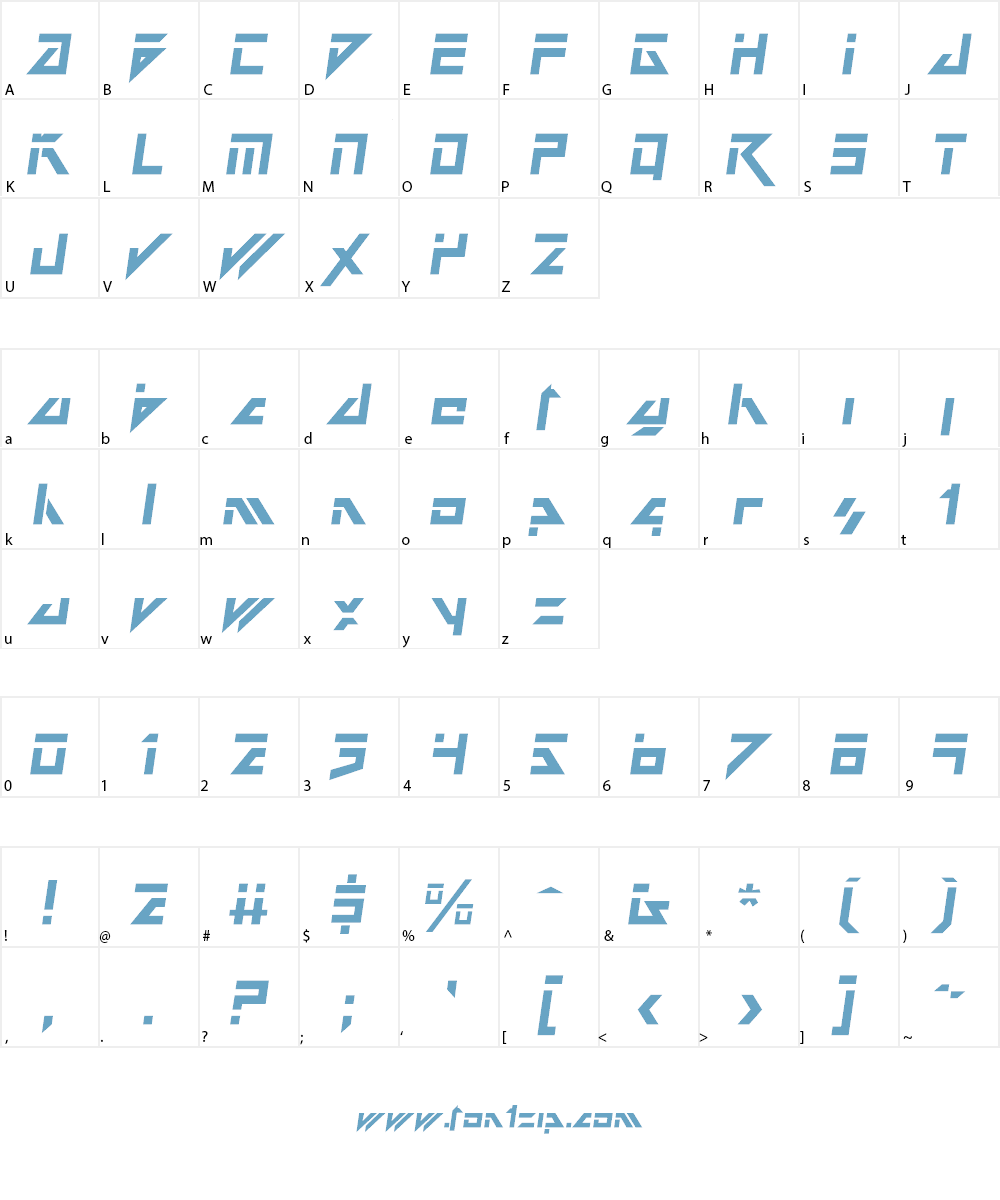
Based on a typeface I originally designed for a personal project in the 90s, before I had decent graphic software, or font creating software. The project fell through, but the graphics remained and inspired me.